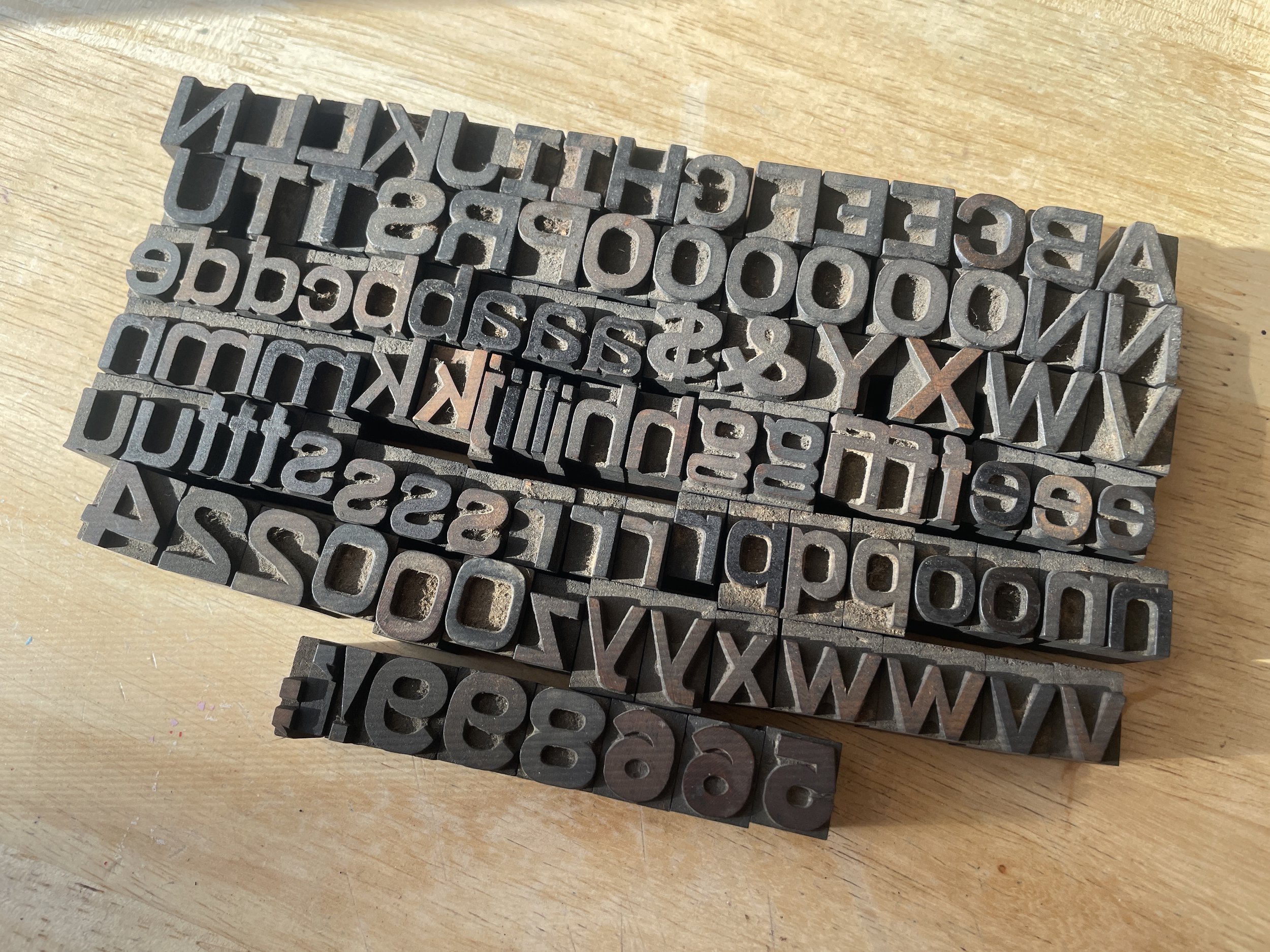
5 Line Condensed Antique Wood Type Font (W37)
A beautiful American 5 line font of condensed Antique wood type by Hamilton of Two Rivers, Wisconsin. Includes all shown.